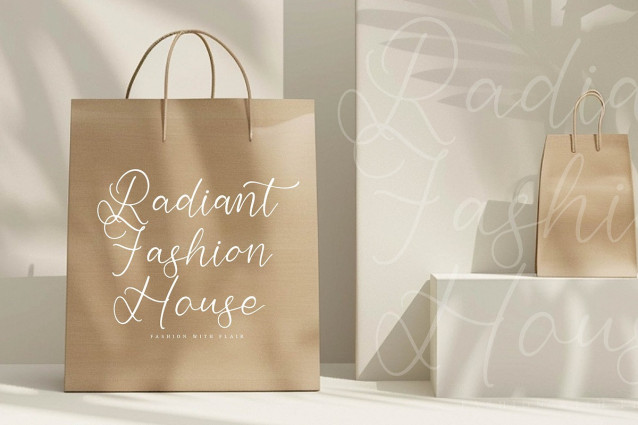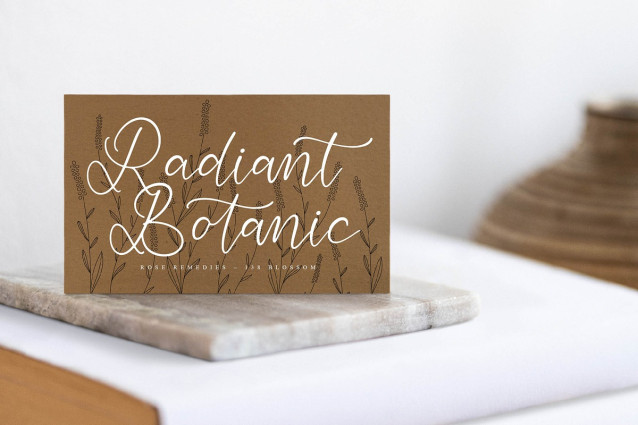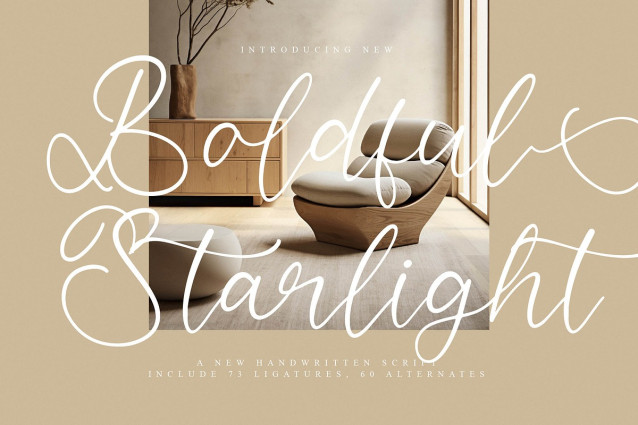
Boldful Starlight Font
Boldful Starlight Font a script font crafted with a flowing and sophisticated style! Each character is uniquely designed to mimic natural handwriting, giving your text a polished, professional look.